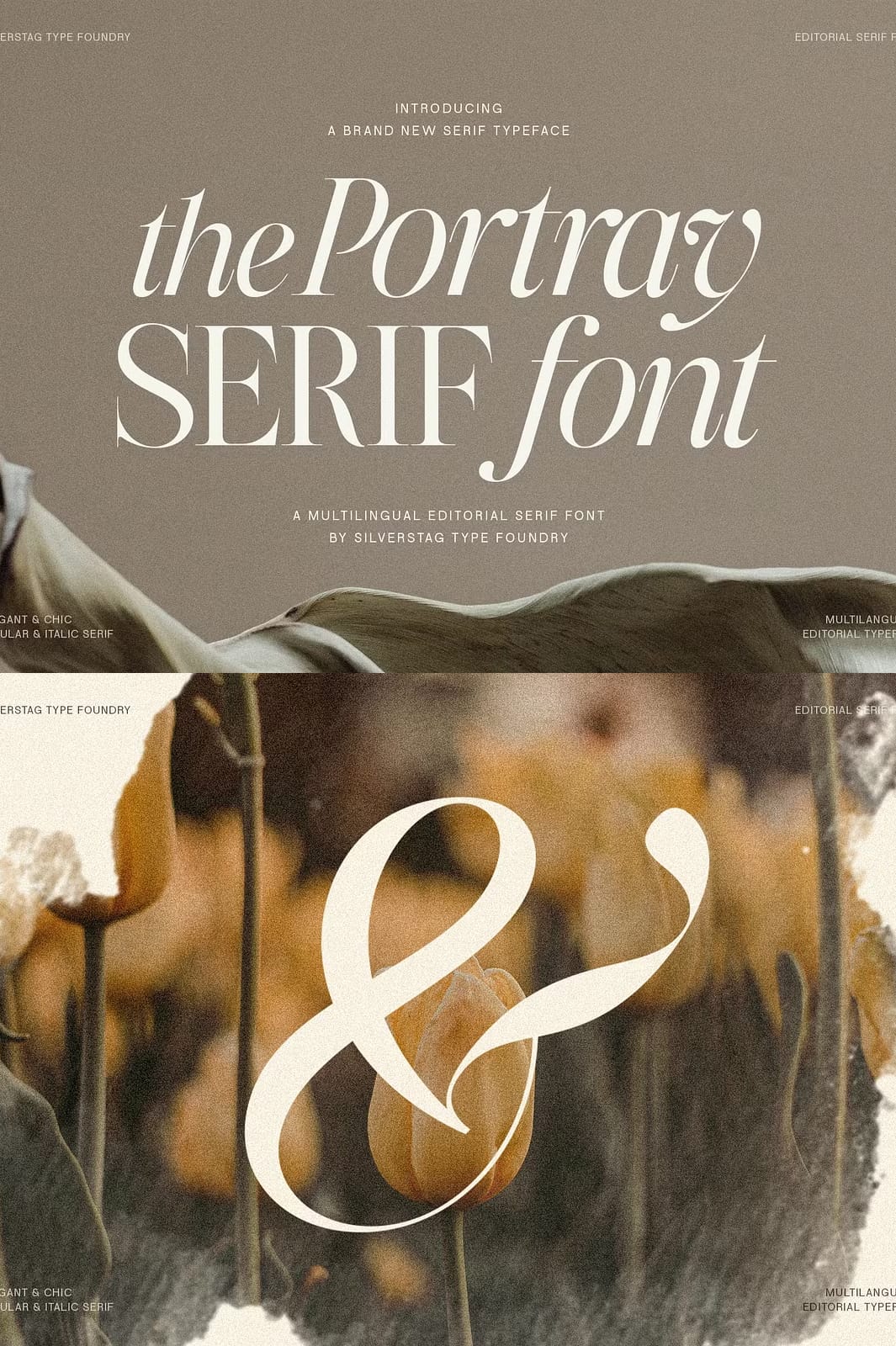
Discover The Portray: A Typeface That Embodies Timeless Elegance and Contemporary Flair
The Portray is a meticulously crafted serif typeface designed to captivate and elevate your creative projects. It masterfully blends the charm of classic typography with a fresh, modern aesthetic, making it an ideal choice for designers who seek sophistication with a contemporary edge. Whether you are working on editorial layouts, brand identities, websites, or printed materials, The Portray delivers a visual experience that is both elegant and dynamic.
High-Contrast Strokes and Graceful Curves for Visual Impact
The Portray’s design features striking high-contrast strokes paired with smooth, graceful curves that create a harmonious rhythm across every character. This balance of strength and subtlety ensures your text commands attention while maintaining readability and refinement. The typeface’s carefully sculpted serifs and balanced proportions contribute to its polished and professional appearance, making it suitable for a wide range of design applications.
True Italics with Unique Personality
Unlike many serif fonts that simply slant their upright characters, The Portray offers true italics that have been thoughtfully designed to complement the regular style. These italics introduce a sense of movement and visual interest, enhancing the overall typographic flow and allowing you to create engaging, dynamic layouts that stand out.
Advanced OpenType Features and Chic Ligatures for Creative Control
The Portray empowers designers with a suite of advanced OpenType features, including stylistic alternates and a curated collection of ligatures. These features enable you to customize your typography with unique letter combinations and subtle flourishes, adding personality and sophistication to your work. This level of control encourages experimentation and innovation, helping you craft distinctive designs that resonate with your audience.
Key Features of The Portray Typeface
- Effortless elegance with clean lines and balanced proportions
- Chic ligatures that add personality and uniqueness
- Advanced OpenType features for full typographic control
- True italics designed for harmonious visual flow
- Extensive multilingual support covering over 90 languages
Multilingual Support for Global Reach
The Portray supports more than 90 languages, making it a versatile choice for international projects. Its comprehensive character set includes a wide range of Latin-based alphabets, ensuring your message can be communicated clearly and elegantly across diverse audiences worldwide.
Perfect Applications for The Portray Typeface
Editorial Design
The Portray’s readability and refined style make it an excellent choice for magazines, newspapers, books, and other long-form text projects. Its elegant presence enhances the reading experience while maintaining clarity and sophistication.
Branding and Logos
Create memorable and sophisticated brand identities with The Portray’s timeless appeal. Its classic yet modern design helps brands communicate quality, trust, and style effectively.
Web Design
The Portray’s clean lines and high contrast ensure optimal legibility on screens of all sizes, making it perfect for websites, digital publications, and online branding.
Packaging and Print
Elevate your product packaging and printed materials with The Portray’s luxurious and polished look. It adds a touch of refined elegance that enhances the perceived value of your products.
Invitations and Stationery
Make a lasting impression with The Portray’s graceful presence on invitations, greeting cards, and other stationery items. Its sophisticated style adds a personal and elegant touch to special occasions.
Why Choose The Portray for Your Next Project?
| Feature | Benefit |
|---|---|
| High-Contrast Strokes | Creates striking visual impact and enhances readability |
| True Italics | Offers dynamic and harmonious typographic flow |
| Advanced OpenType Features | Enables creative customization and unique letterforms |
| Multilingual Support | Ensures global communication across 90+ languages |
| Versatile Applications | Perfect for editorial, branding, web, print, and stationery |